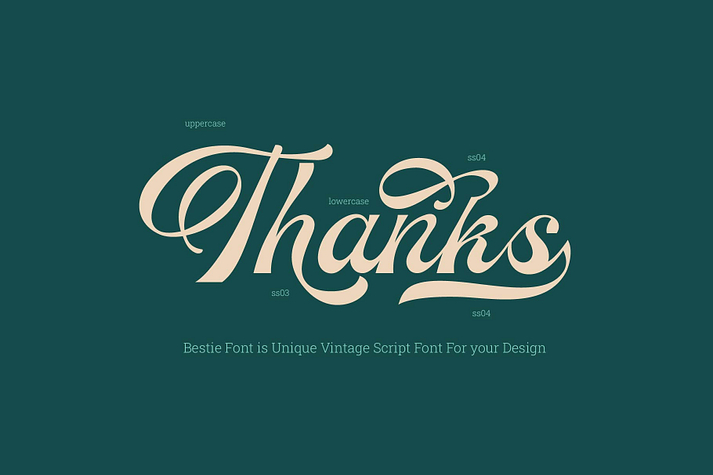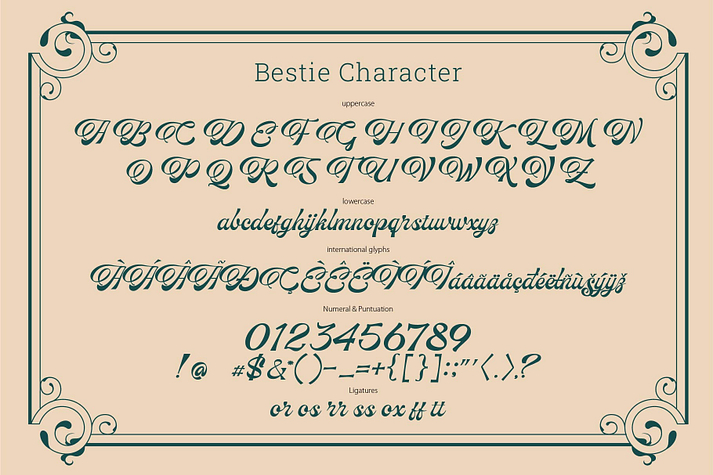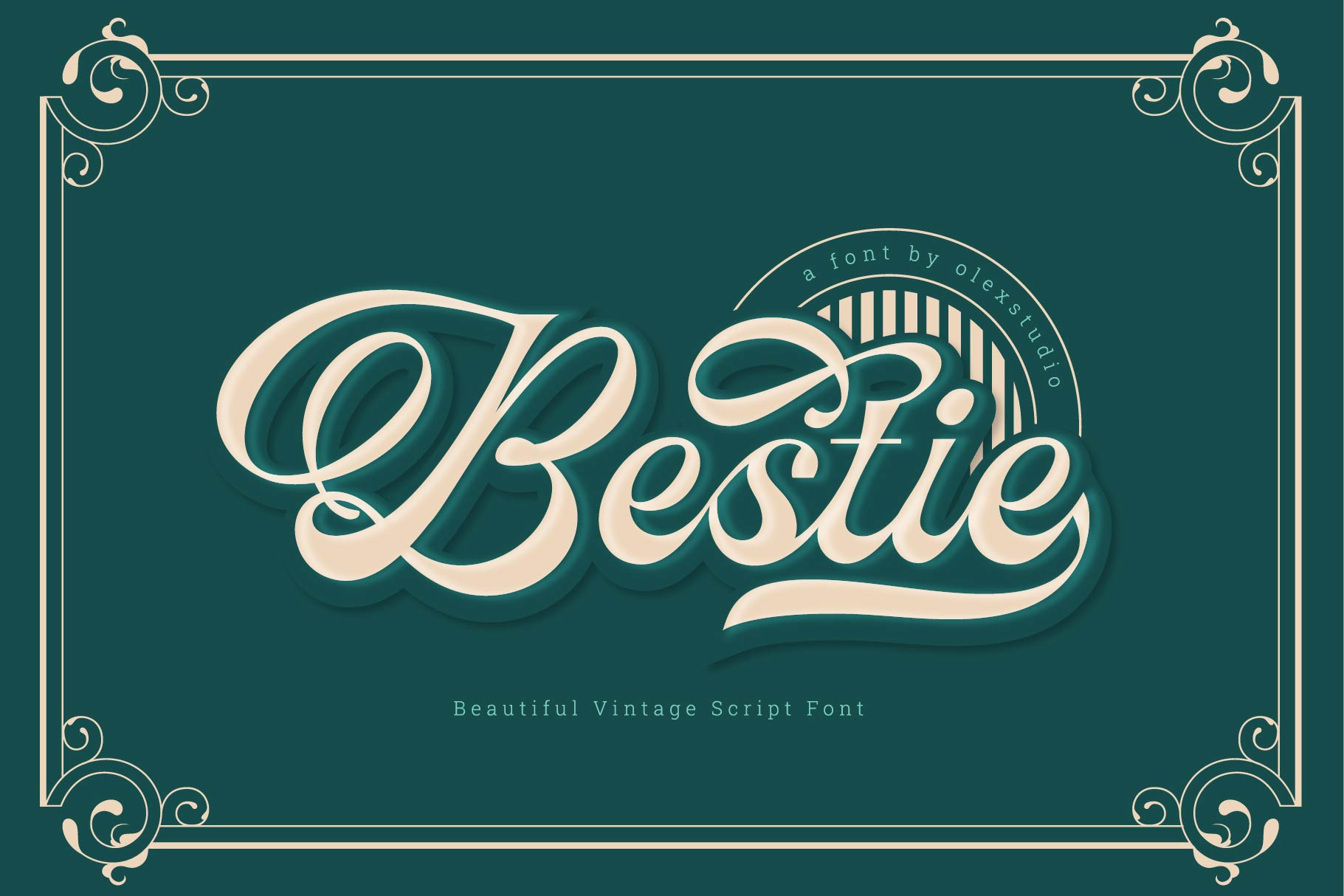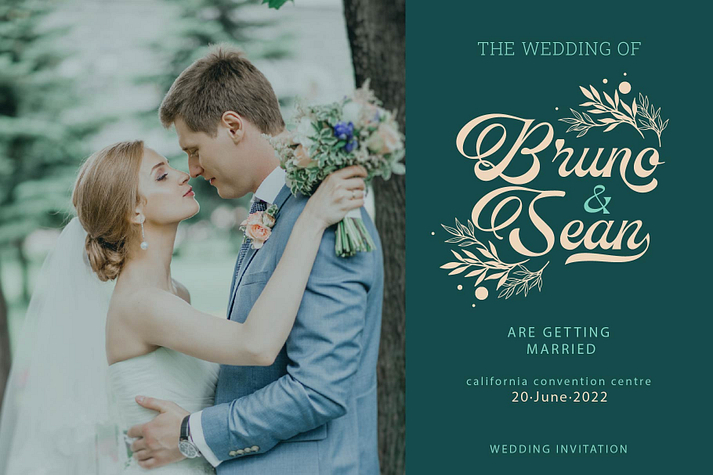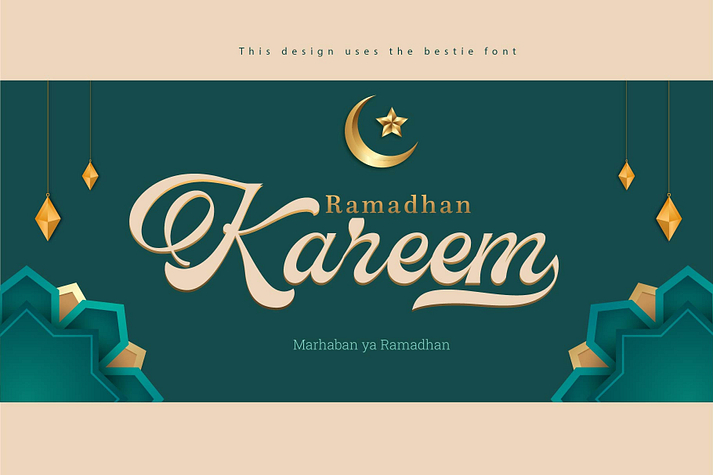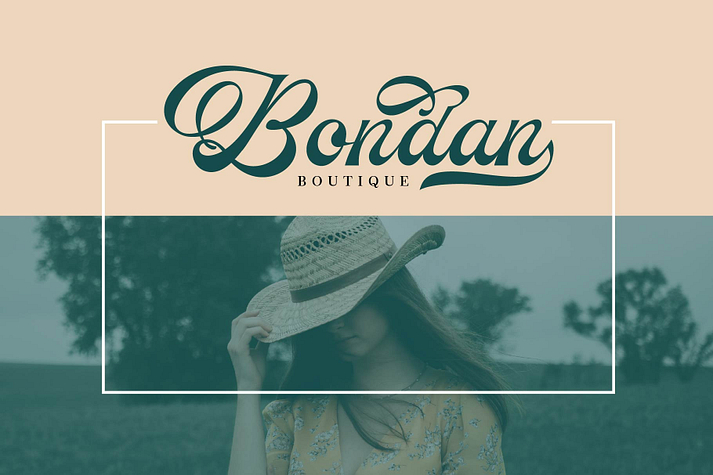
Bestie
Bestie is a font family published by olexstudio.
Bestie - Vintage Script Font will look gorgeous on all your designs, invitation, poster design, book design, branding materials, logo’s, and all project design other.